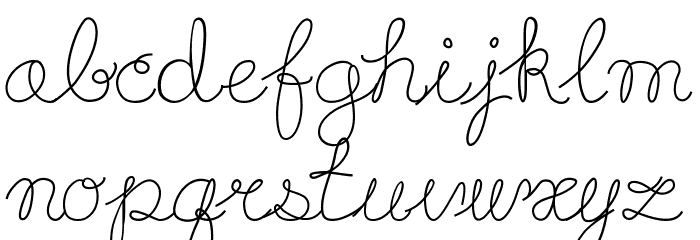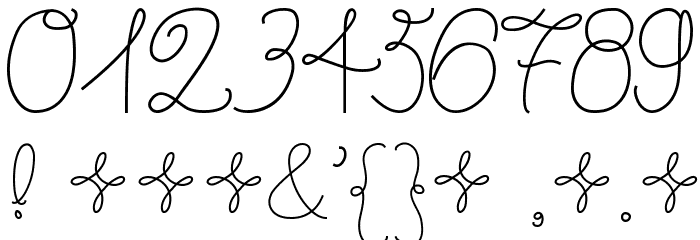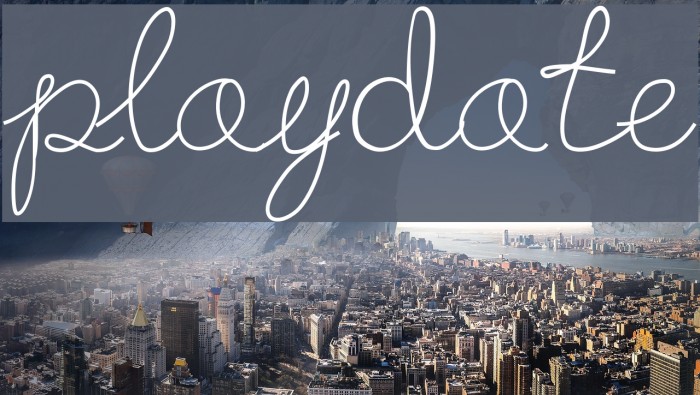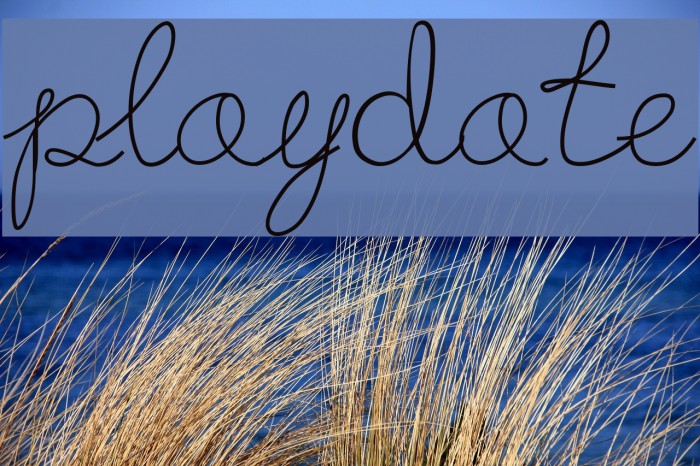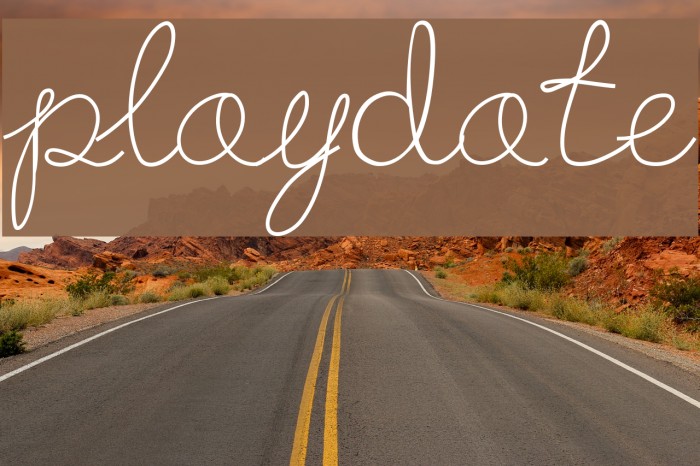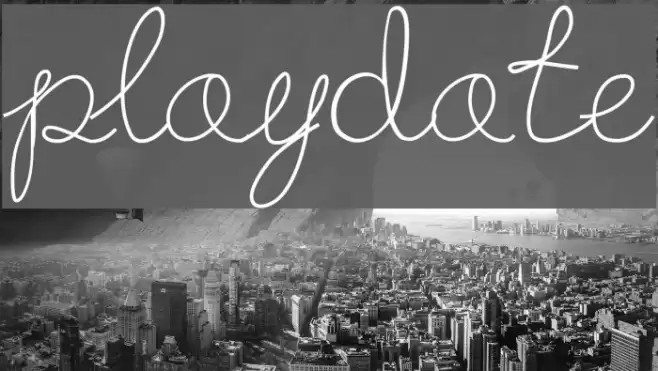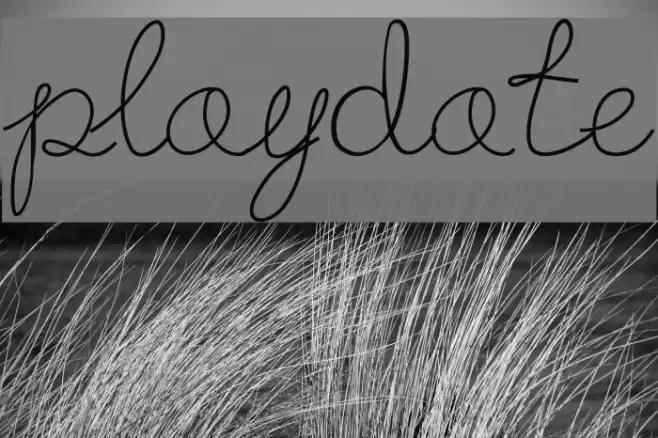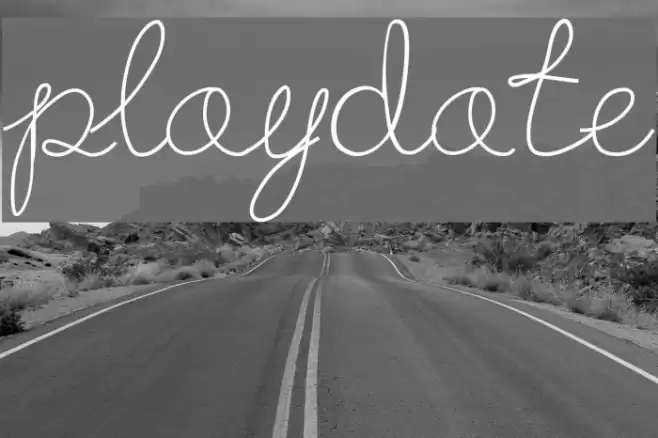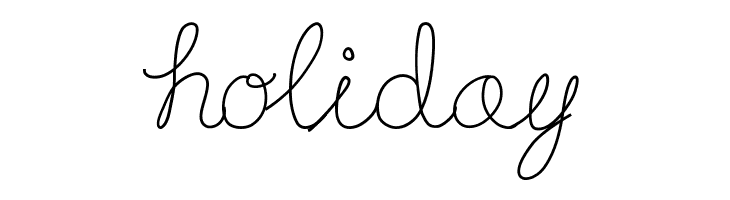
Playdate Font
This font features a playful and whimsical script style, characterized by its flowing, interconnected letters that mimic the fluidity of handwriting. The characters are elegantly curved with a consistent stroke width, giving it a smooth and harmonious appearance. The uppercase and lowercase letters maintain a cohesive look, with the lowercase letters exhibiting a slight slant that enhances the handwritten feel. The numerals are distinct and easy to read, while the special characters blend seamlessly with the overall design. This font exudes a sense of creativity and spontaneity, making it ideal for projects that require a personal touch.
A playful, handwritten script font with flowing, interconnected letters.
- Proposed Projects: Greeting cards, invitations, personal branding, and creative projects.
- Overall Style: Playful
- Use Case: Logos, Invitations, Greeting cards